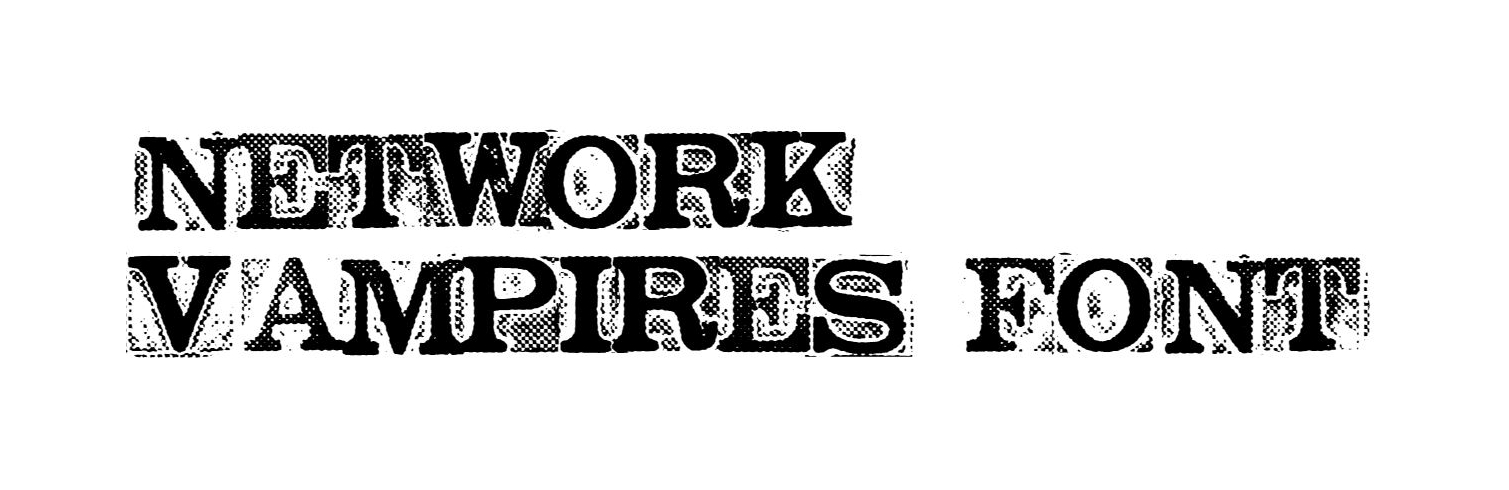
Network Vampires
Network Vampires is a fancy font made by Billy Argel (2010). It's a decorative display font with plenty of personality, made to grab attention. It's a free download, and you can try it with your own text in the preview above first.
- Designer: Billy Argel
- Year: 2010 (from the copyright line in the font)
- Glyphs: 68
What You Can Type With Network Vampires
Network Vampires covers the full alphabet in upper and lowercase, plus all ten numbers, so you can set names, dates and prices without switching fonts. Punctuation is limited, so look at the character map if you need a specific symbol. It doesn't include accented letters such as é or ñ, which makes it an English-only font.
Where Network Vampires Works Best
Think of Network Vampires for posters, logos and eye-catching headlines. Its lowercase letters are tall compared to the capitals, which keeps it readable at smaller sizes. The file has no kerning data, so in logos and big titles check pairs like AV, To and Wa and tighten the spacing by hand. Use it for one standout word or headline and let simpler fonts handle the rest.
Who designed Network Vampires font?
Does Network Vampires support accented letters?
No. Network Vampires has no accented letters such as é, ñ or ü, so it's best for English text.